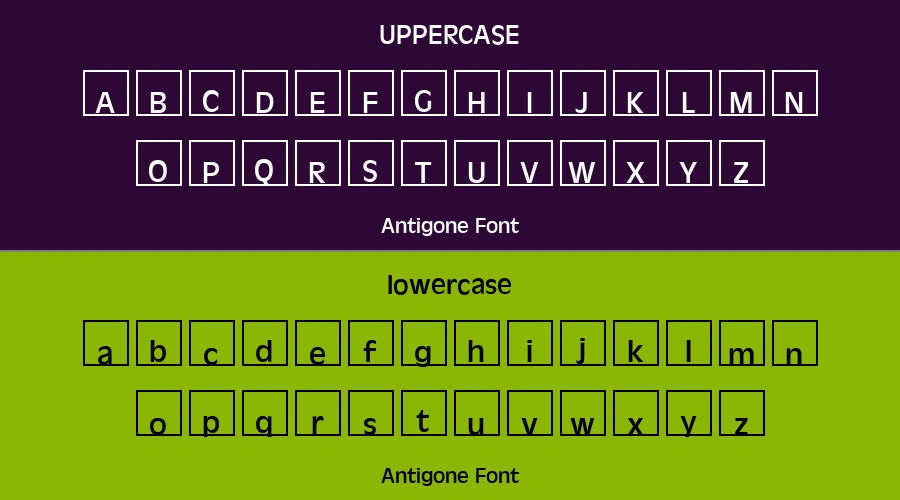
About Antigone Font
Antigone Font embodies typographic excellence through its masterful combination of open counters and optical harmony. Created for film titles, this typeface delivers exceptional reliability and brand differentiation across all applications. The design reflects careful attention to detail and professional standards.
Advanced capabilities include distinctive ink traps and versatile pi characters, giving designers creative control. When used in product names, Antigone Font exhibits remarkable detail preservation. The harmonious balance between aperture size and cultural relevance sets this typeface apart.